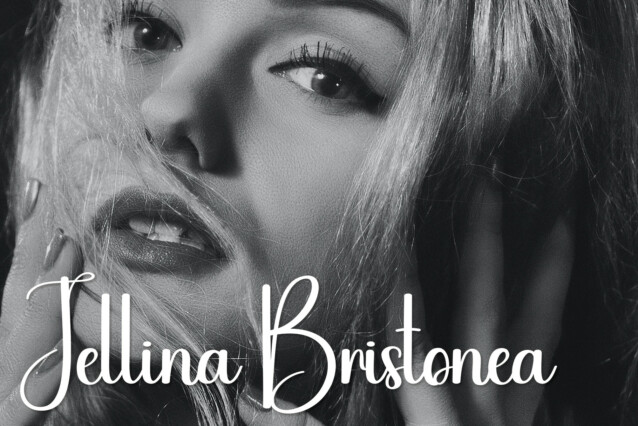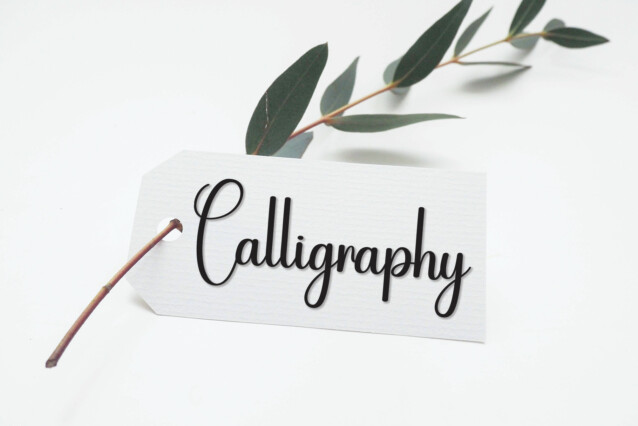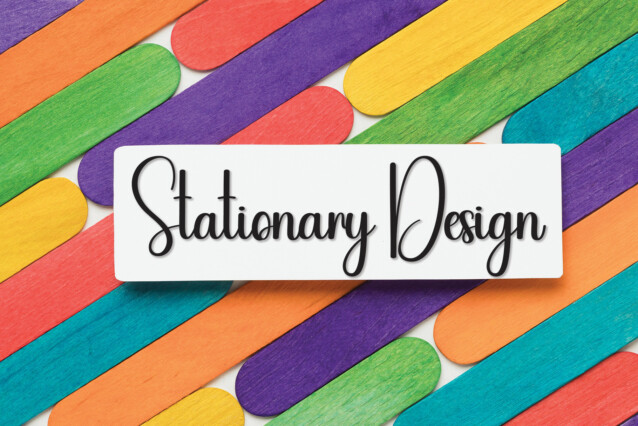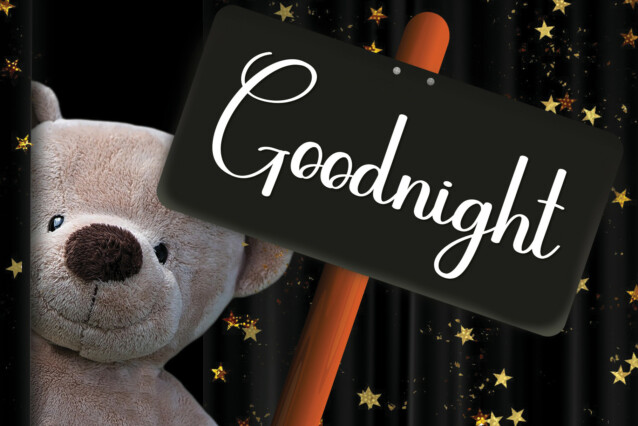
Style Calligraphy Font
Style Calligraphy Font is an enchanting handwritten font. This versatile script font has a wide spectrum of applications ranging from greeting cards to headlines and is guaranteed to add a romantic feel to your next project.